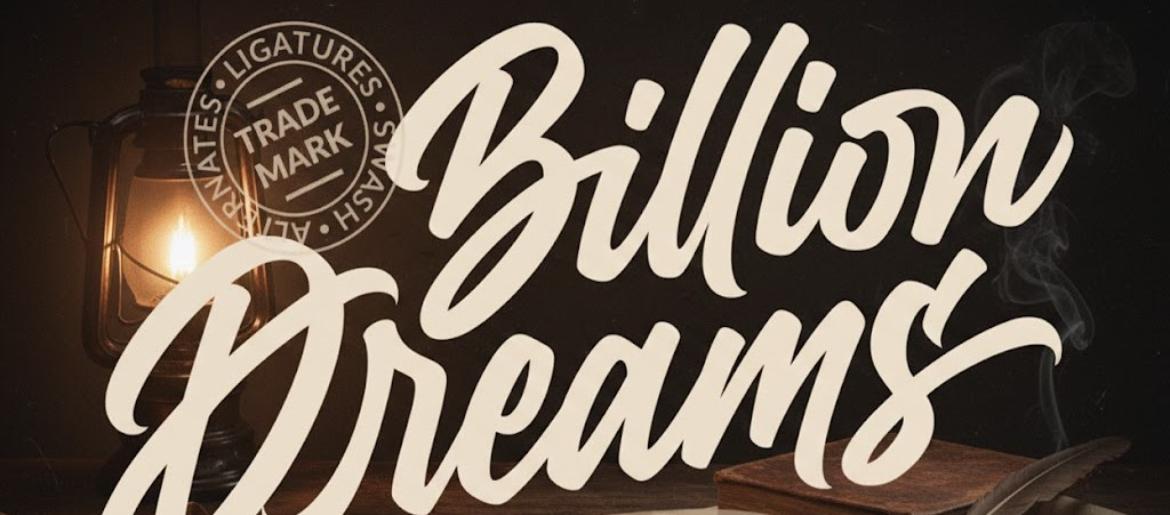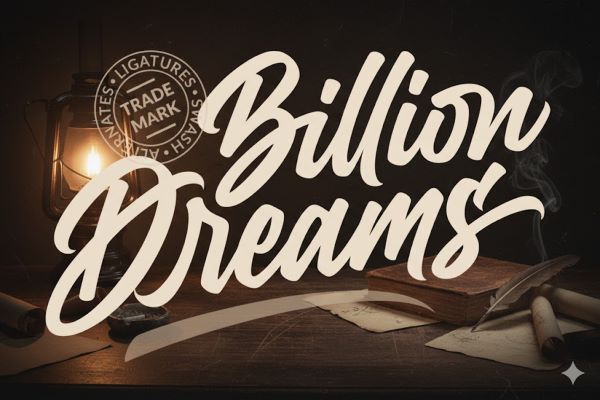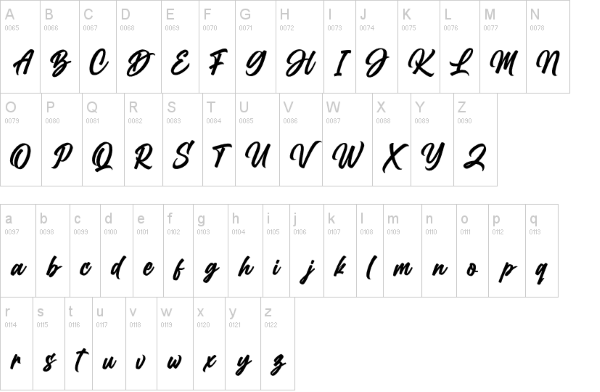
Billion Dreams Font
Billion Dreams Font is a cool logotype script typeface featuring bold, expressive brush strokes that add strong character and personality. It includes stylistic alternates, swashes, ligatures, and decorative characters for versatile, non-repetitive typography. With extensive European Latin language support, it’s ideal for logos, branding, packaging, and creative designs that need impact and flexibility.